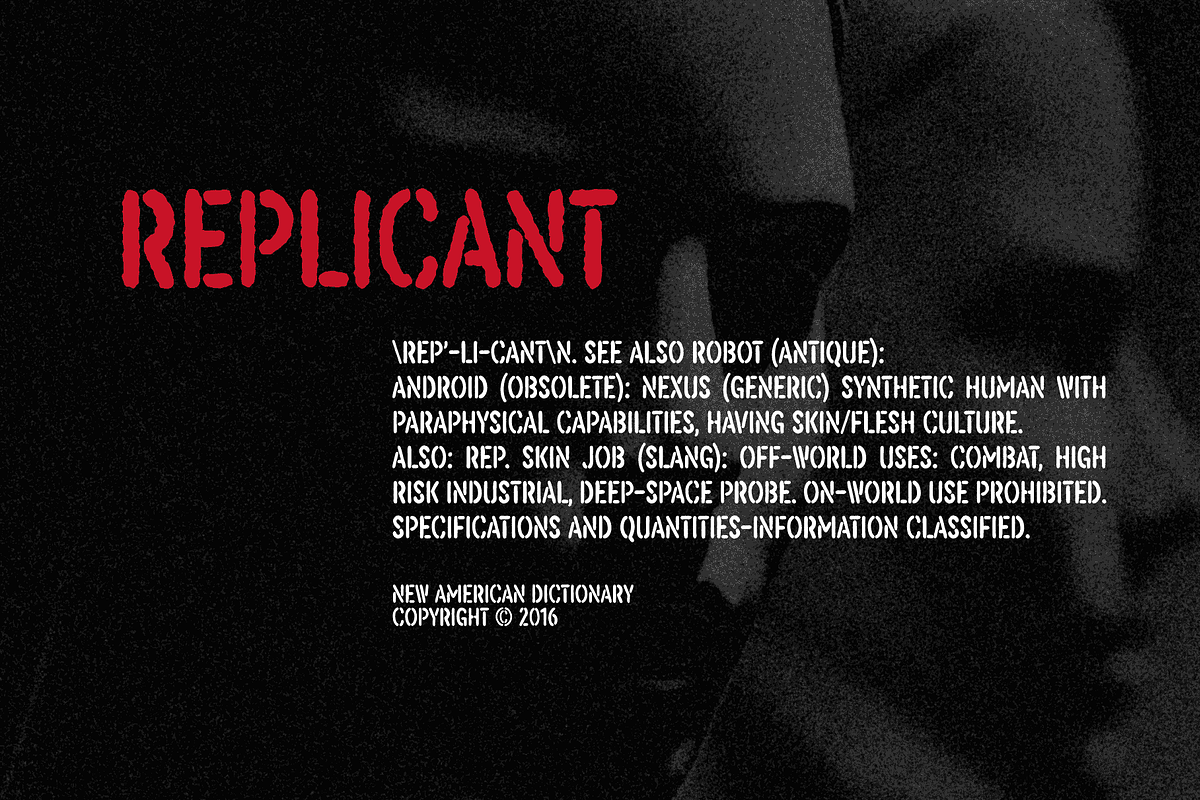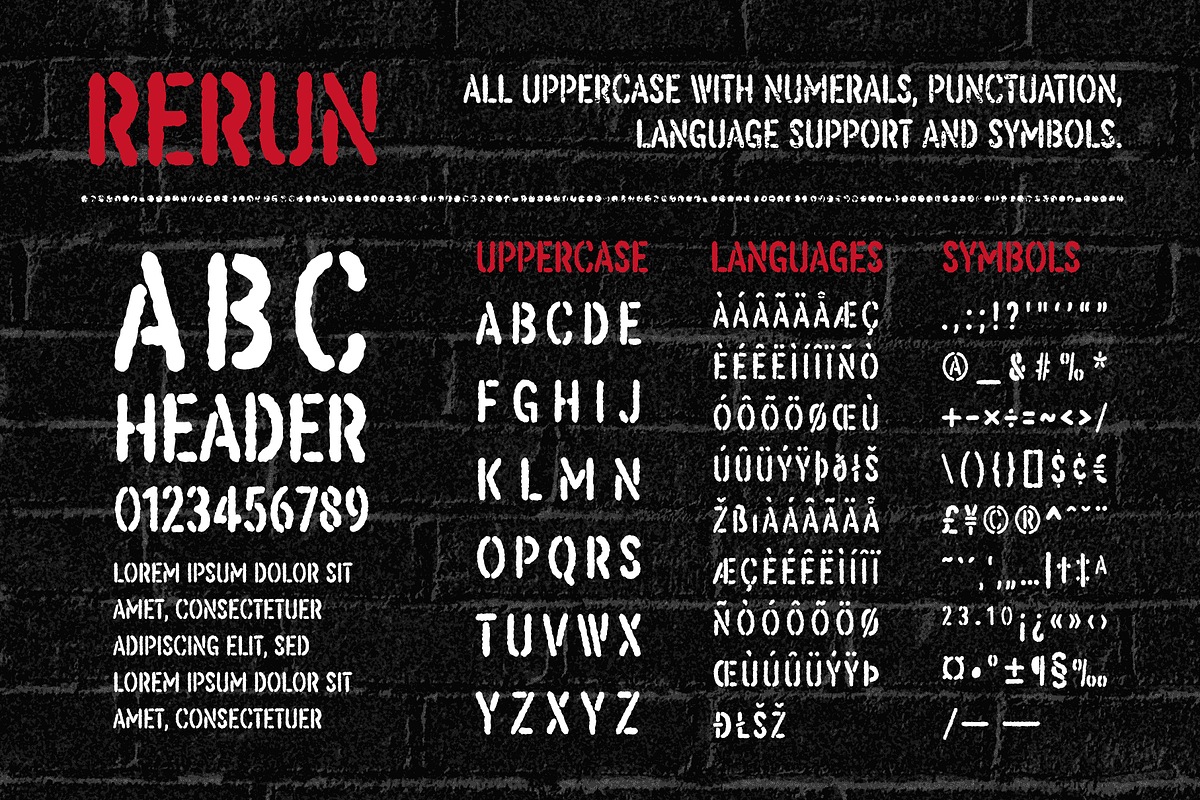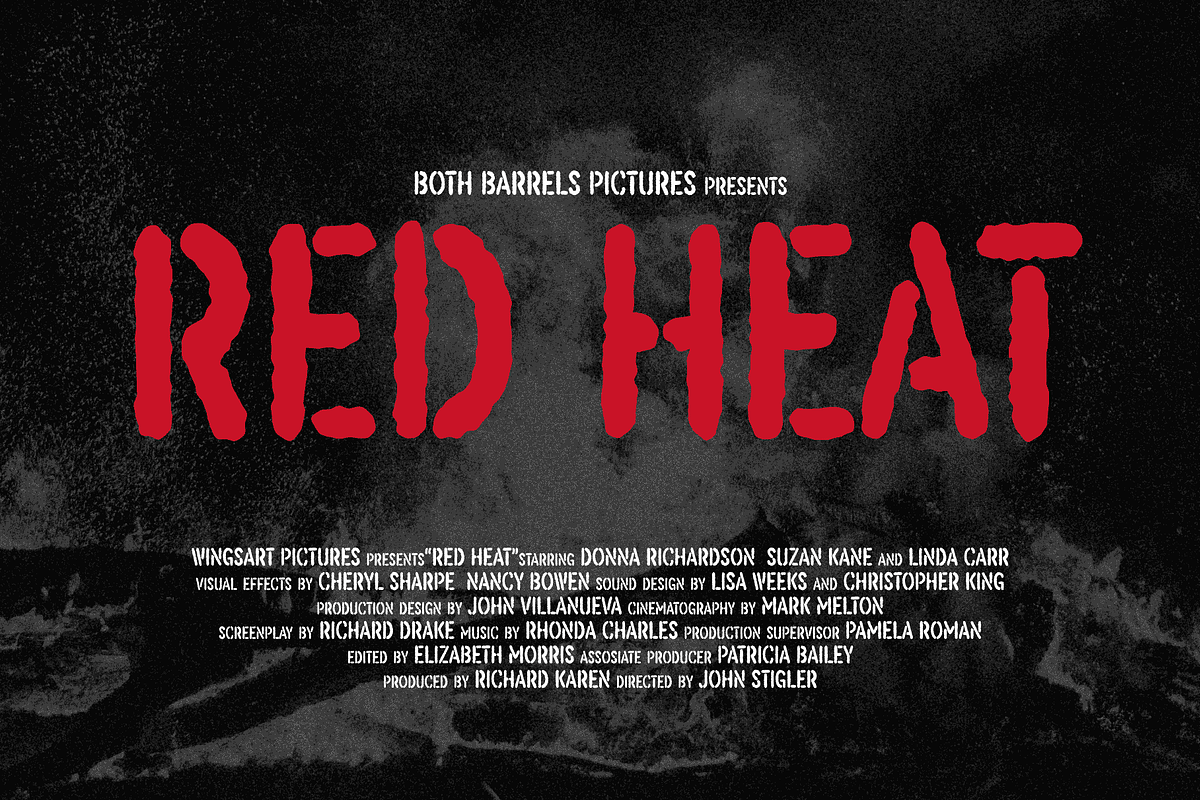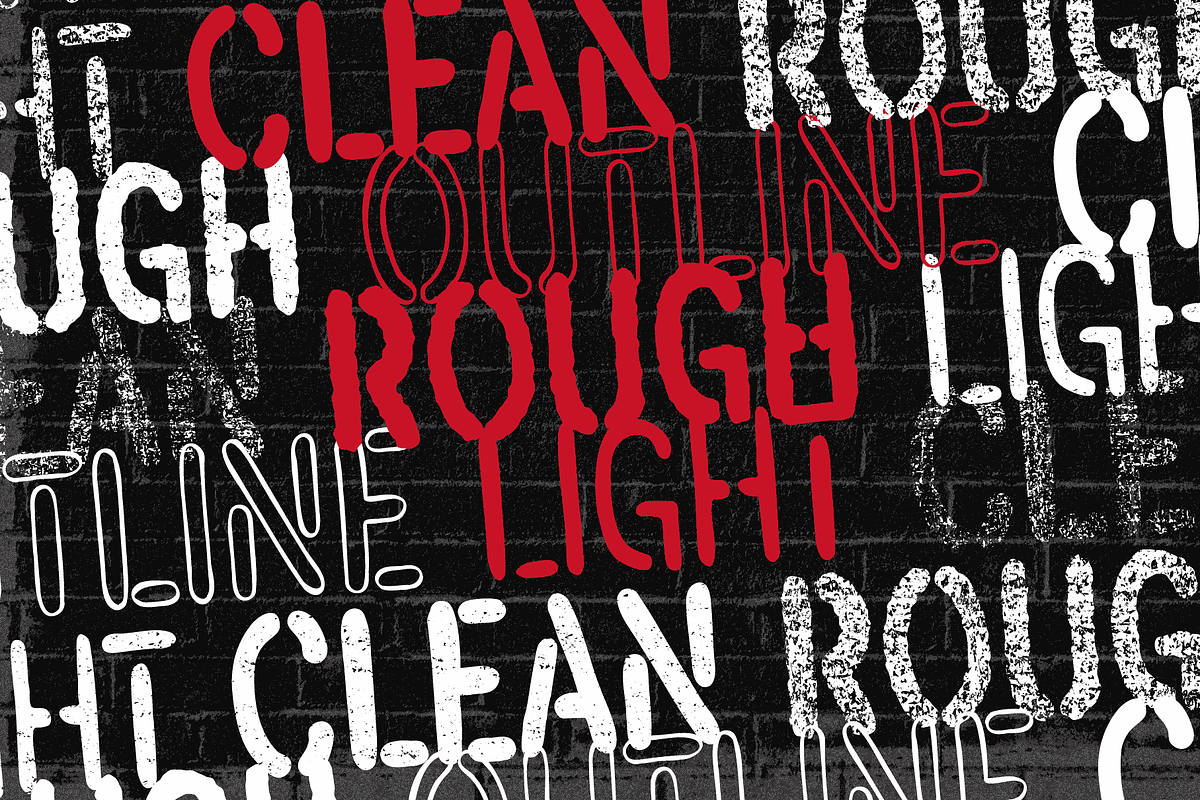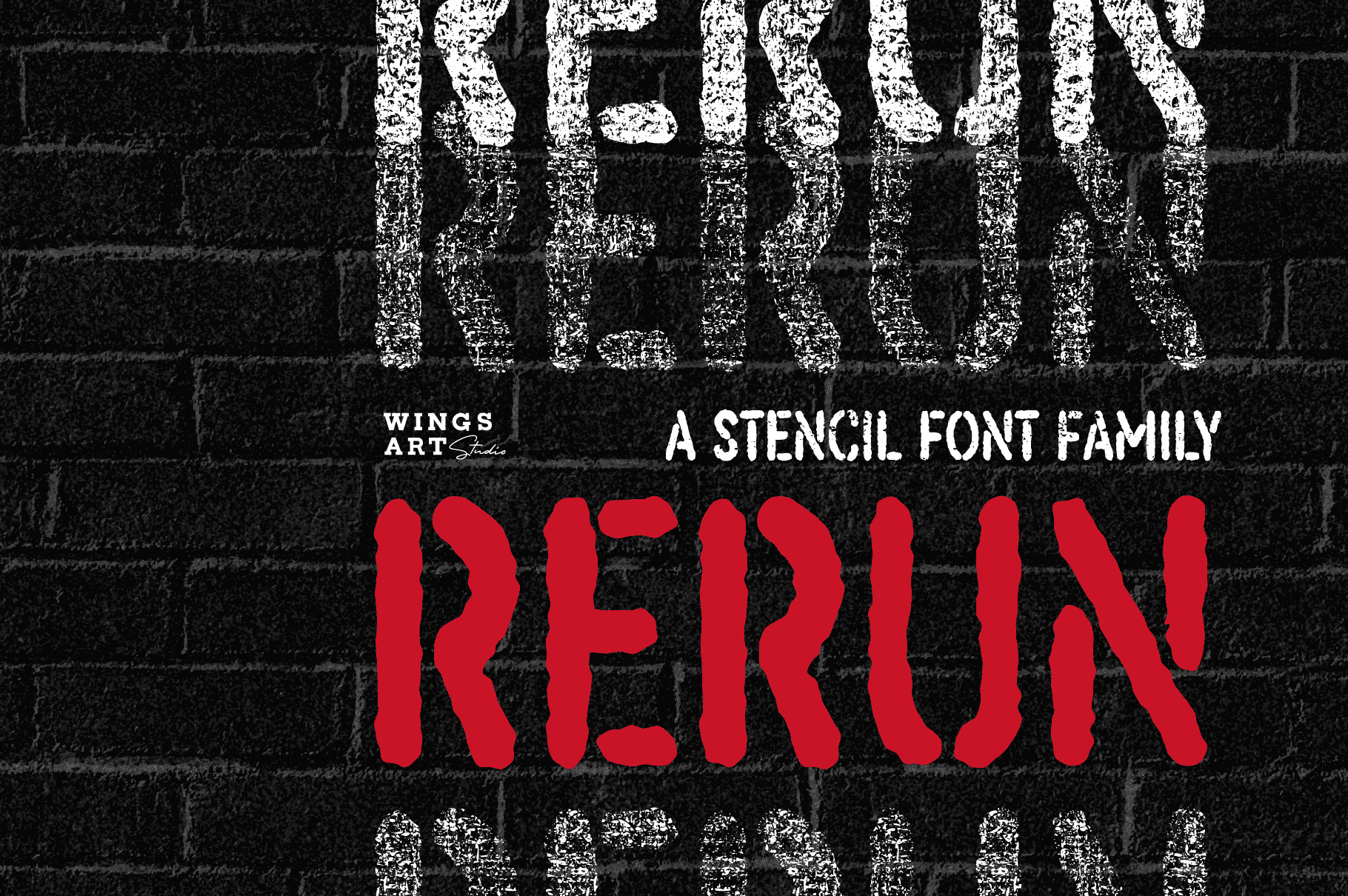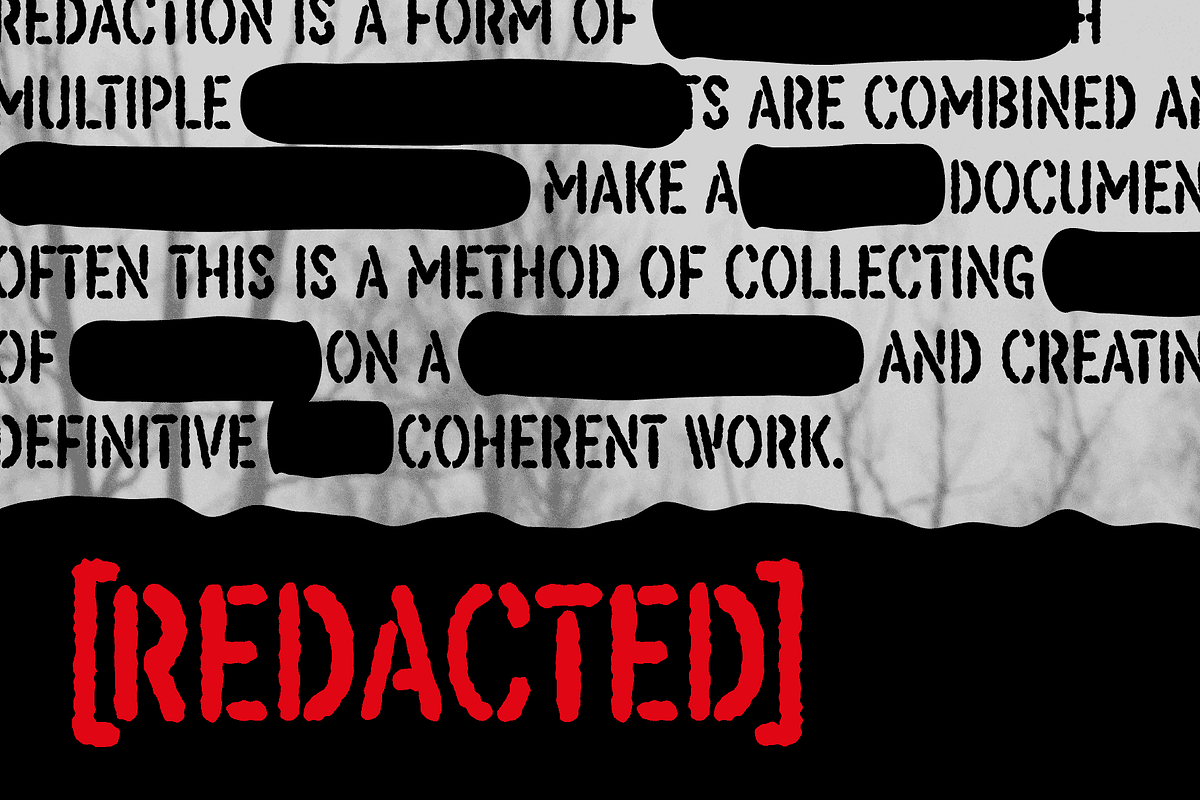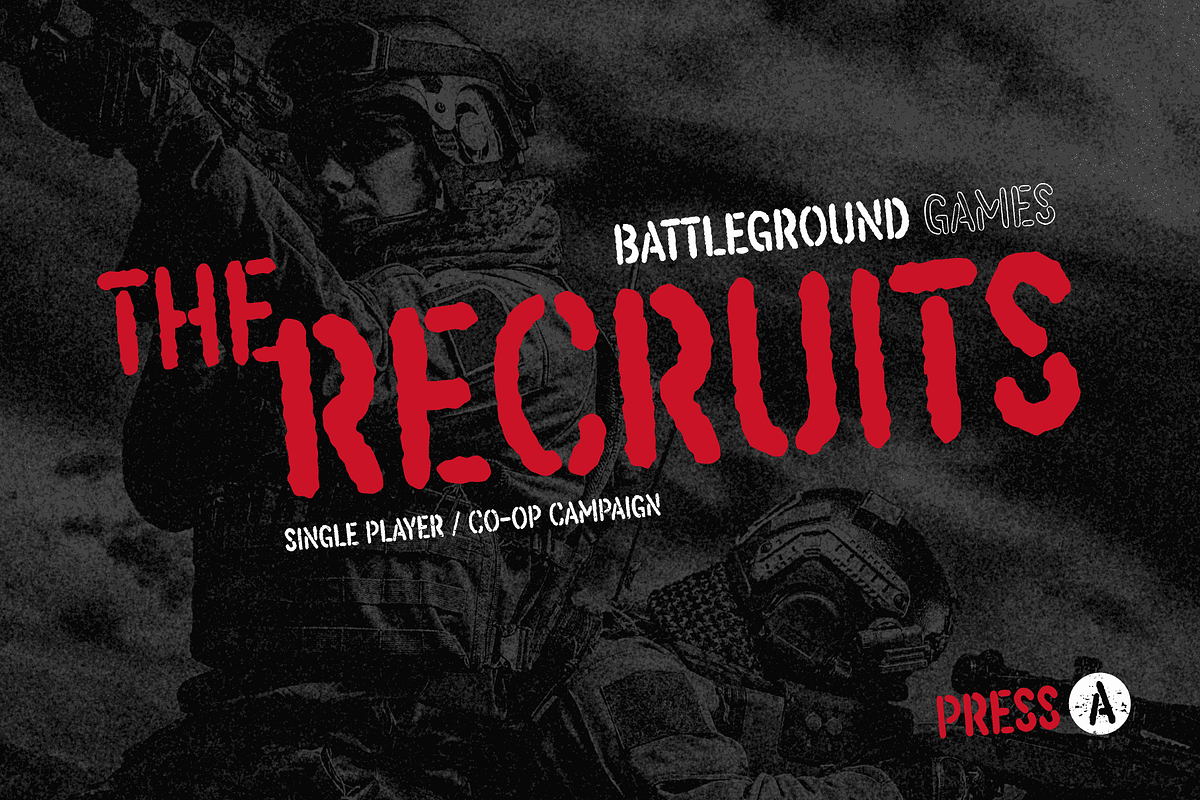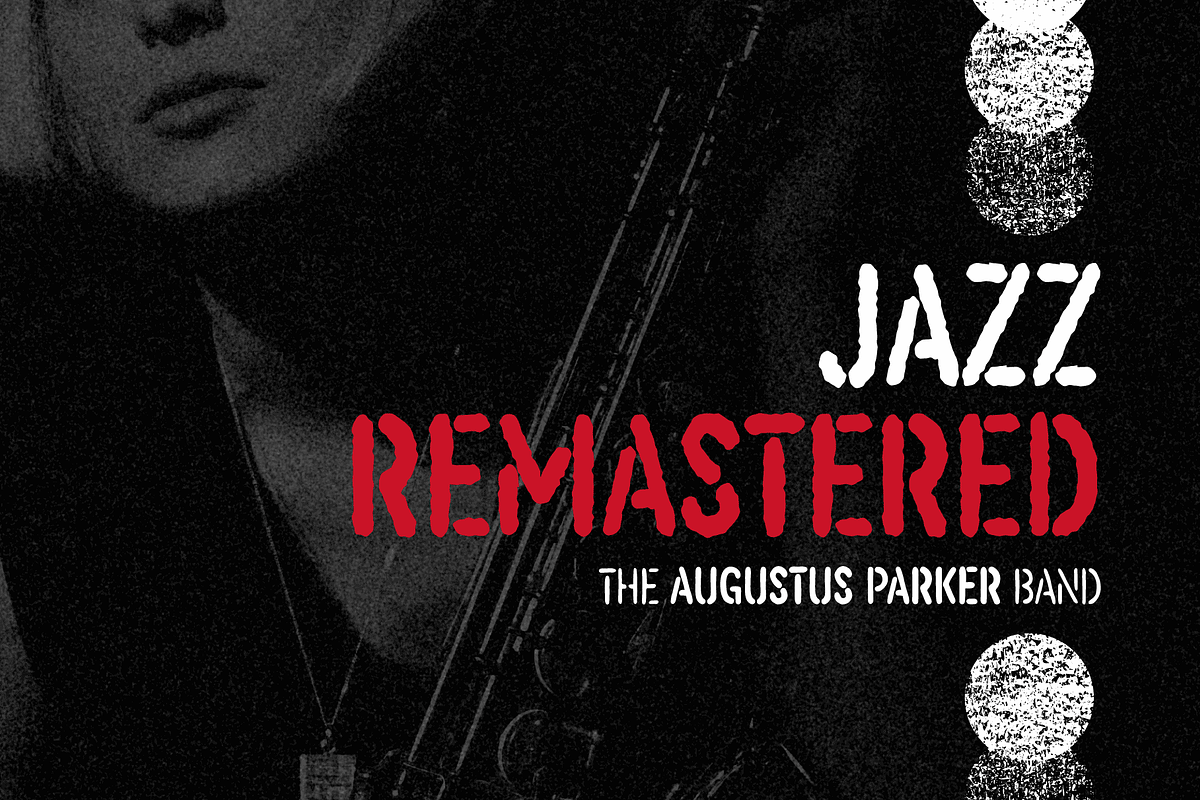
ReRun: A Stencil Font Family
A hand-drawn stencil font for video games and film titles with a grungy urban design.
This all-caps display font offers a simple way to replicate the look of hand-drawn or sprayed on stencil lettering. An industrial style that's used for it's quick real-world applications found on everything from roadworks, storage containers and military vehicles; with an urban visual language uniquely suited to video games, film titles and album covers. See above for more usage ideas.
This font family includes uppercase-only characters, plus all punctuation, numerals and language support.